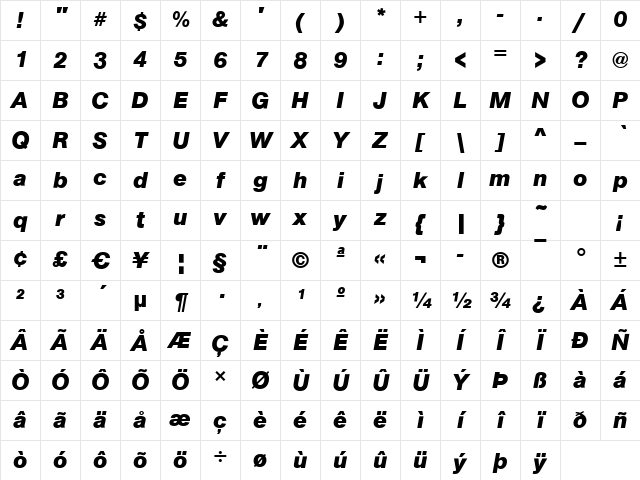
Arezzo-Bold Italic
Design Context for Arezzo-Bold
Arezzo-Bold is a composed and adaptable typeface that performs quietly and consistently across a wide range of design contexts. The slanted form adds forward momentum and visual energy. Its bold stroke weight gives it real presence on the page.
Pro Tip: Use Arezzo-Bold for emphasis, pull quotes, and subheadings where its slanted energy can add rhythm to the layout.